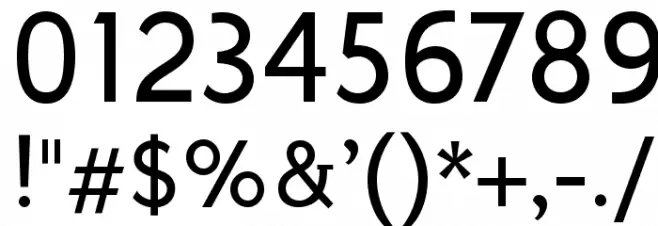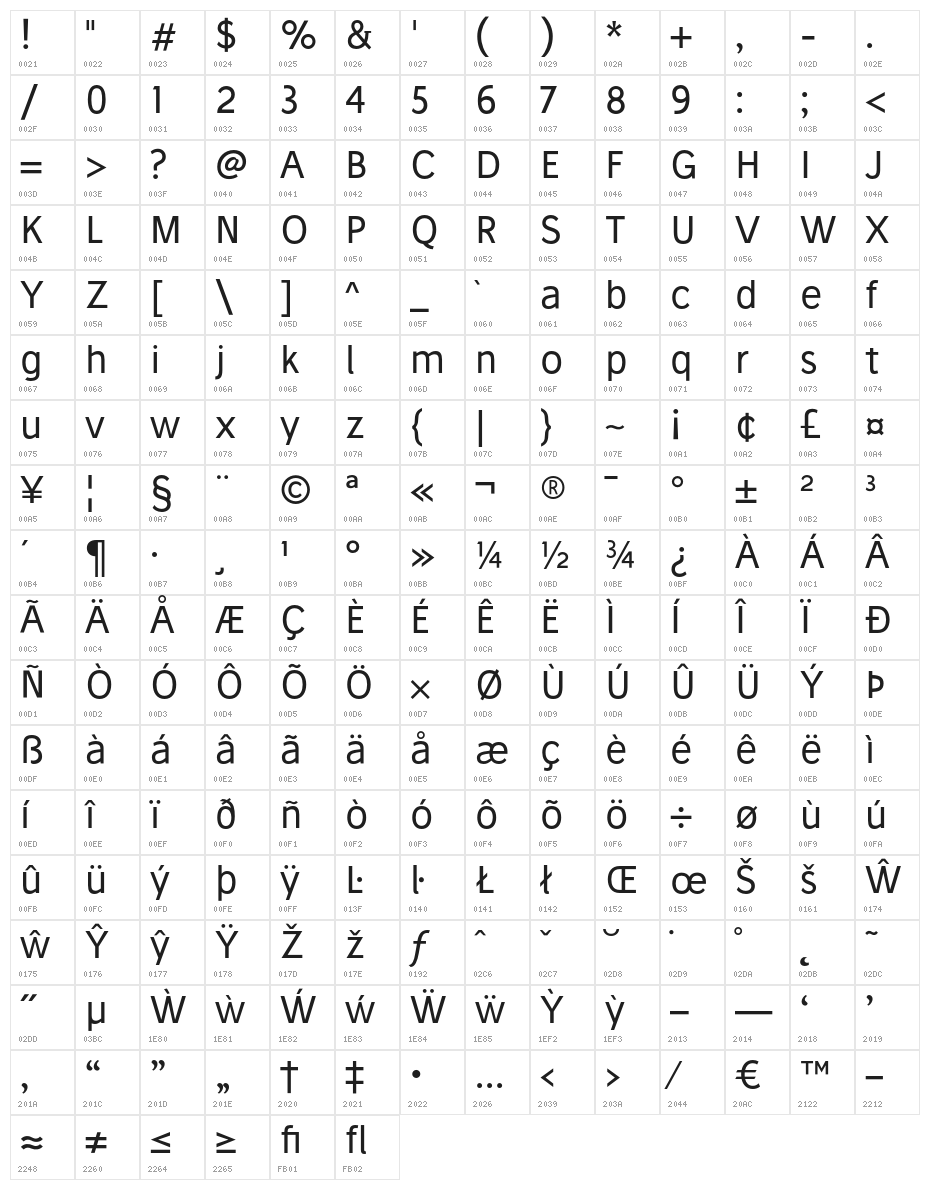
Stilu-Regular Font
Stilu-Regular Description
This typeface features a clean and modern sans-serif design, characterized by its simplicity and readability. The letters are evenly spaced with a consistent stroke width, providing a balanced and harmonious appearance. The uppercase and lowercase letters are well-proportioned, making it suitable for a variety of applications. The numerals are clear and distinct, ensuring easy readability. Special characters are included, maintaining the font's cohesive style. This font is versatile, offering a professional look for both digital and print media.
Genilson L. Santos
| Proposed Projects | Ideal for corporate branding, web design, editorial layouts, and user interface design. |